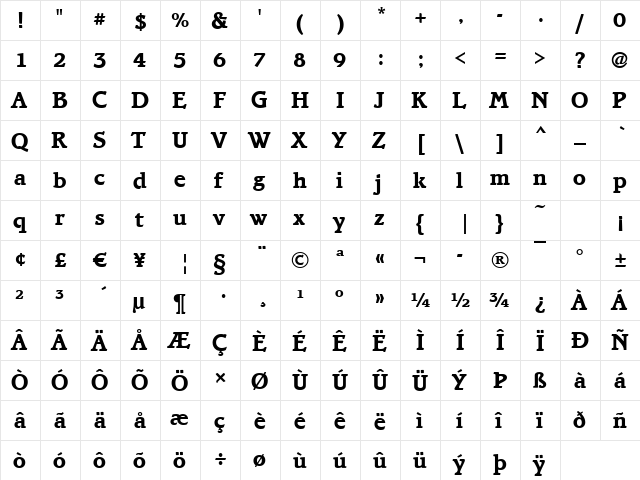
Bravo-Bold Regular
Design Context for Bravo-Bold Typeface
Bravo-Bold offers clean, dependable letterforms without strong stylistic allegiance, making it a practical choice for designers who need flexibility. The heavy weight commands attention and anchors typographic hierarchies.